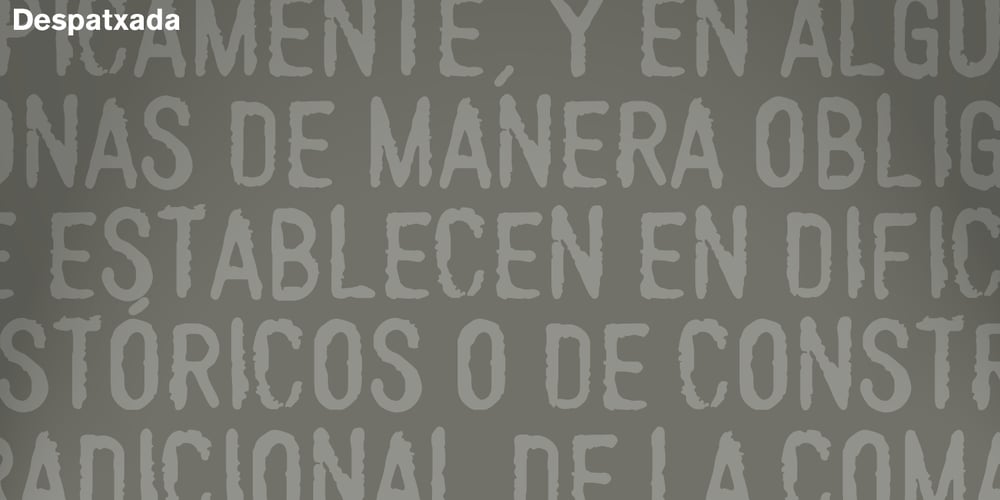
Despatxada Font Family was designed by Jaume Ros and published by Type-Ø-Tones. Despatxada contains 1 styles and family package options. Despatxada letters are the scans of the alphabet of a manual rubber press. Letter by letter. Real prints. Real textures. You will not find another typeface like this. An heroic font in the digital era.